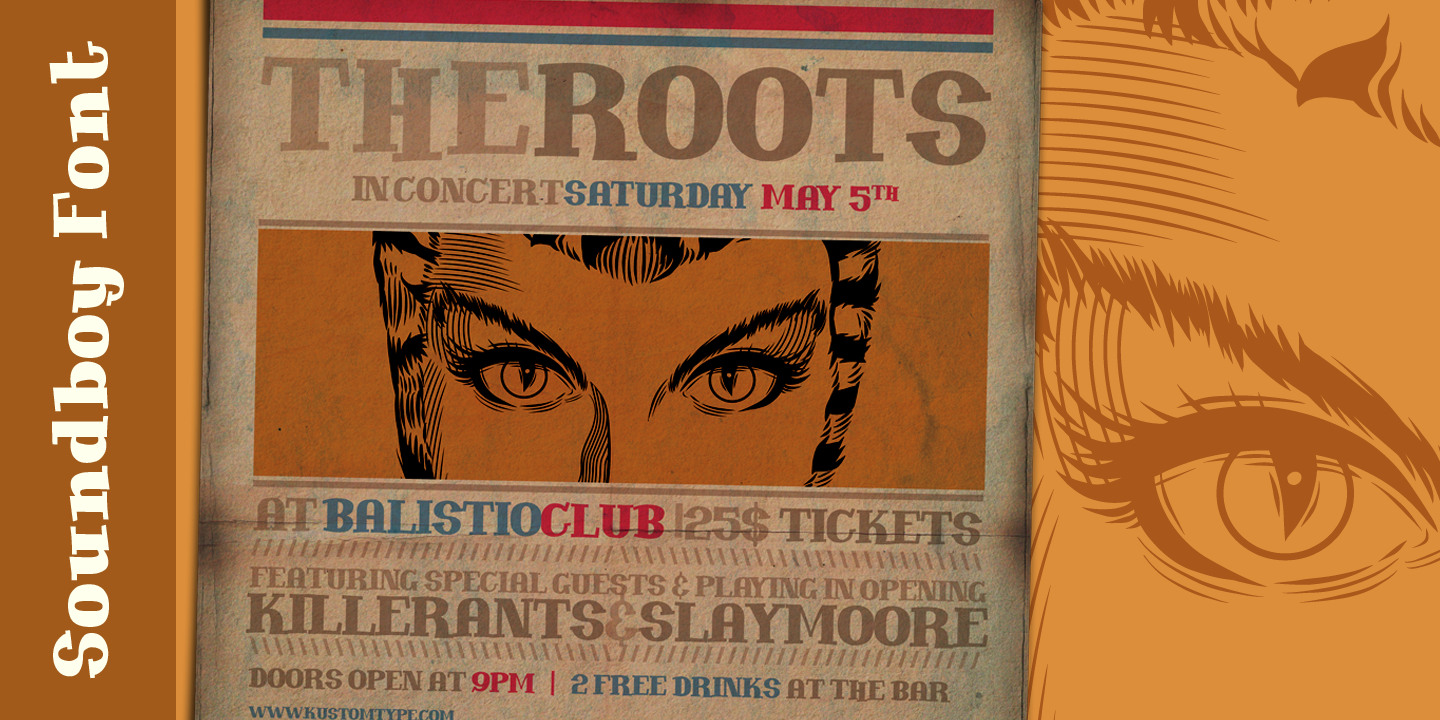
Soundboy Font Free Download is a vibrant and bold display font inspired by urban culture and music vibes. Please note: you must purchase a license for commercial use — this font is available as a free download for testing and personal projects only.
Perfect for music album covers, DJ flyers, party posters, streetwear branding, social media graphics, and entertainment websites, Soundboy Font Free Download delivers dynamic energy and strong personality.
What makes this font exciting is its playful yet powerful letterforms, combining sharp edges with smooth curves to create a unique rhythm and flow. It’s the perfect font to amplify your creative voice and make your designs sing.
The Soundboy font family includes Regular and Bold styles, giving you flexibility to create bold headlines or standout text with attitude.